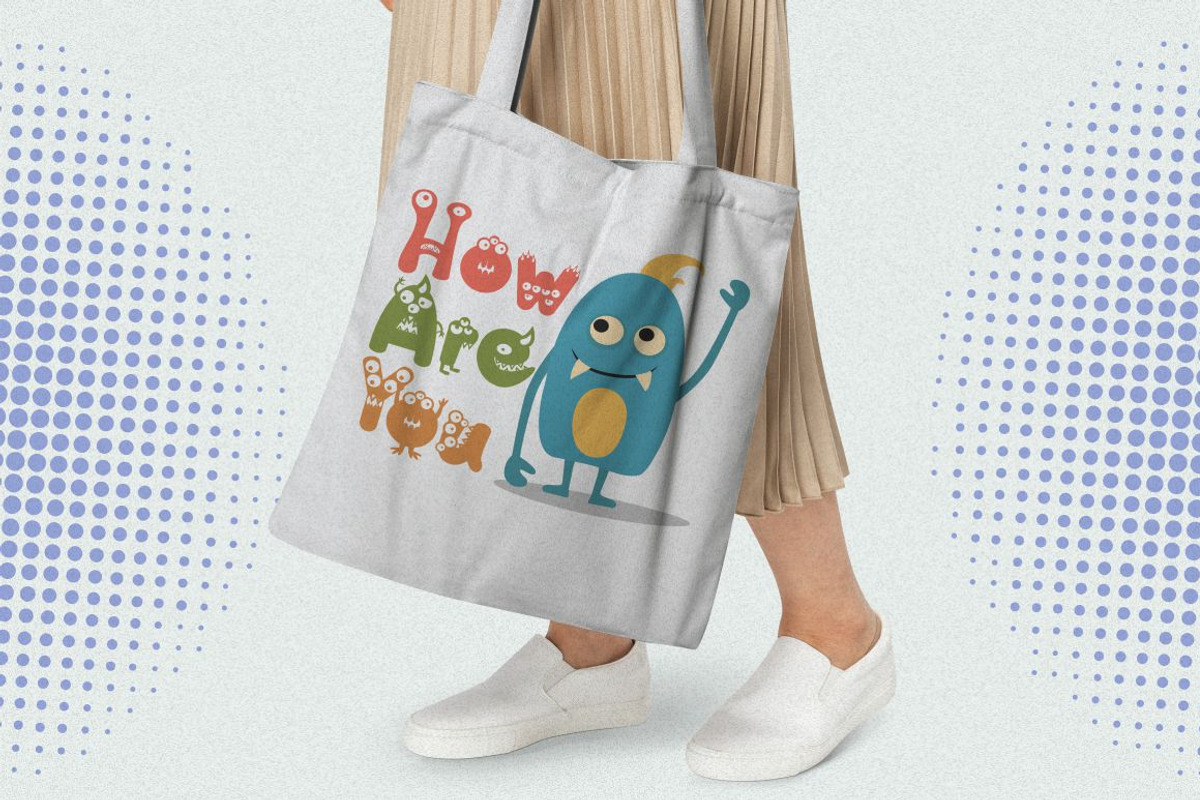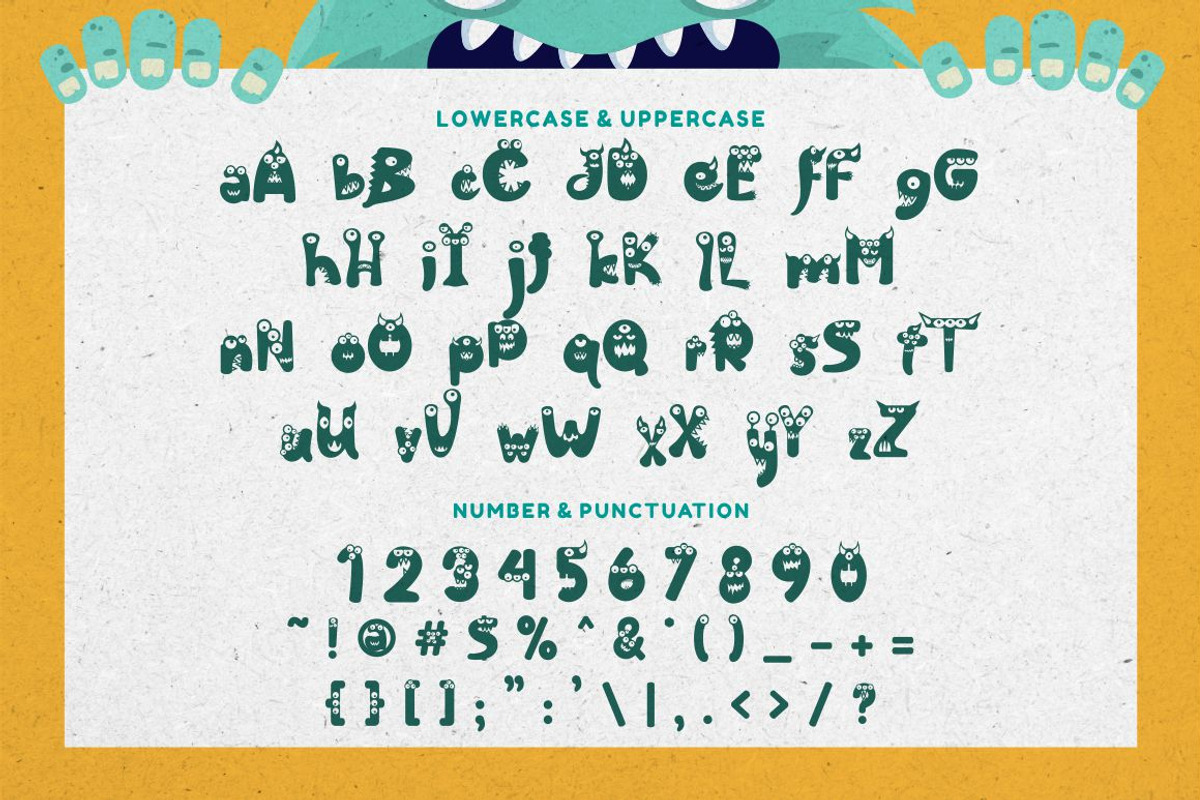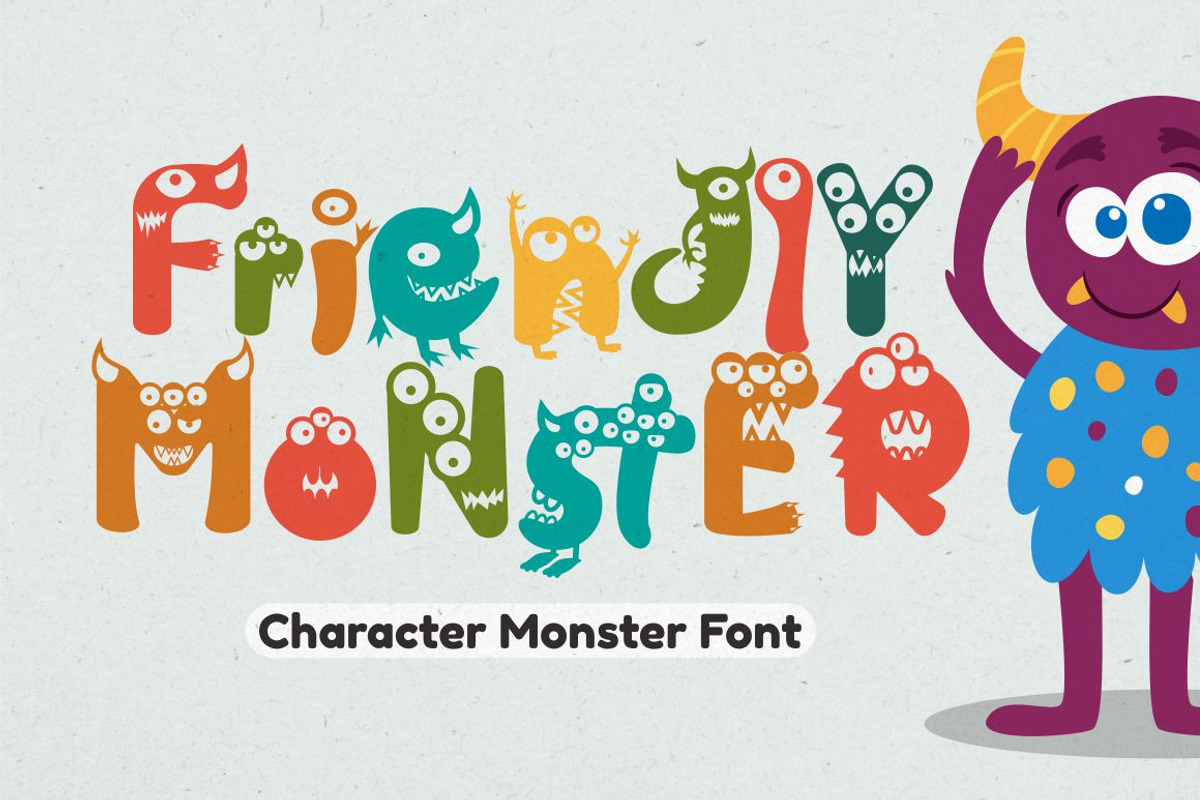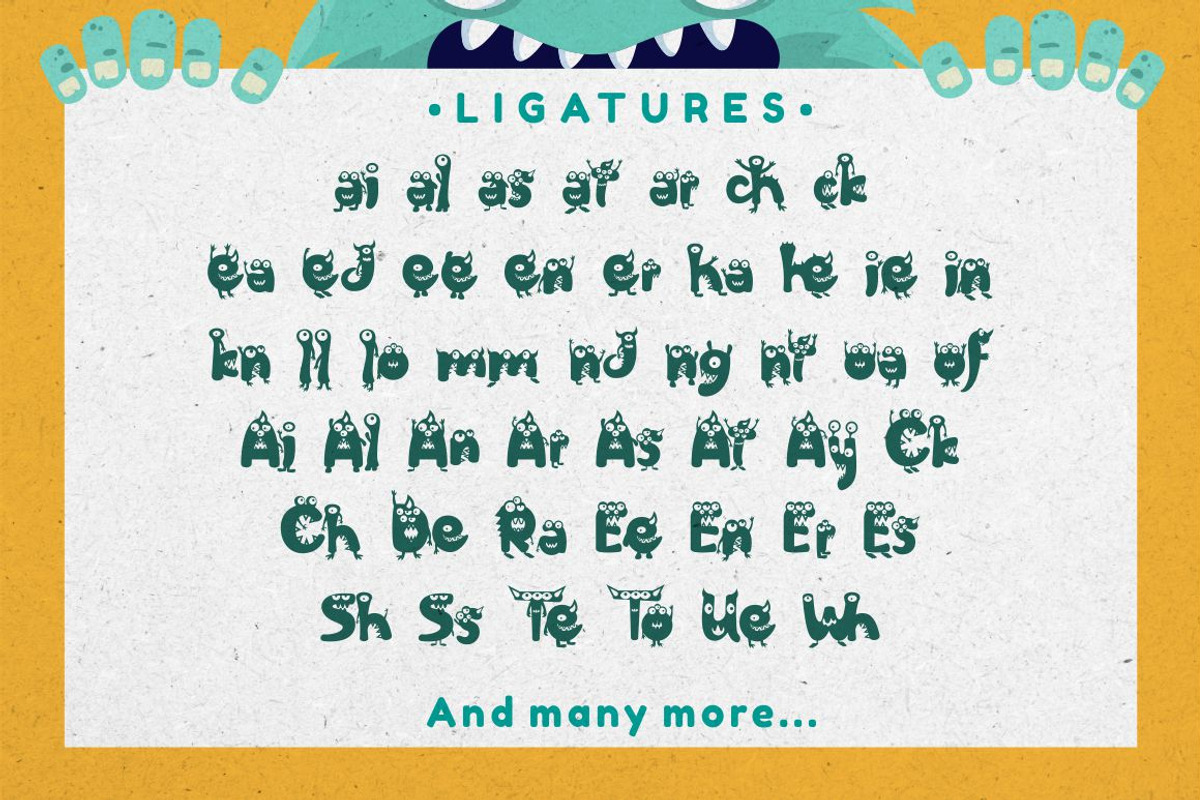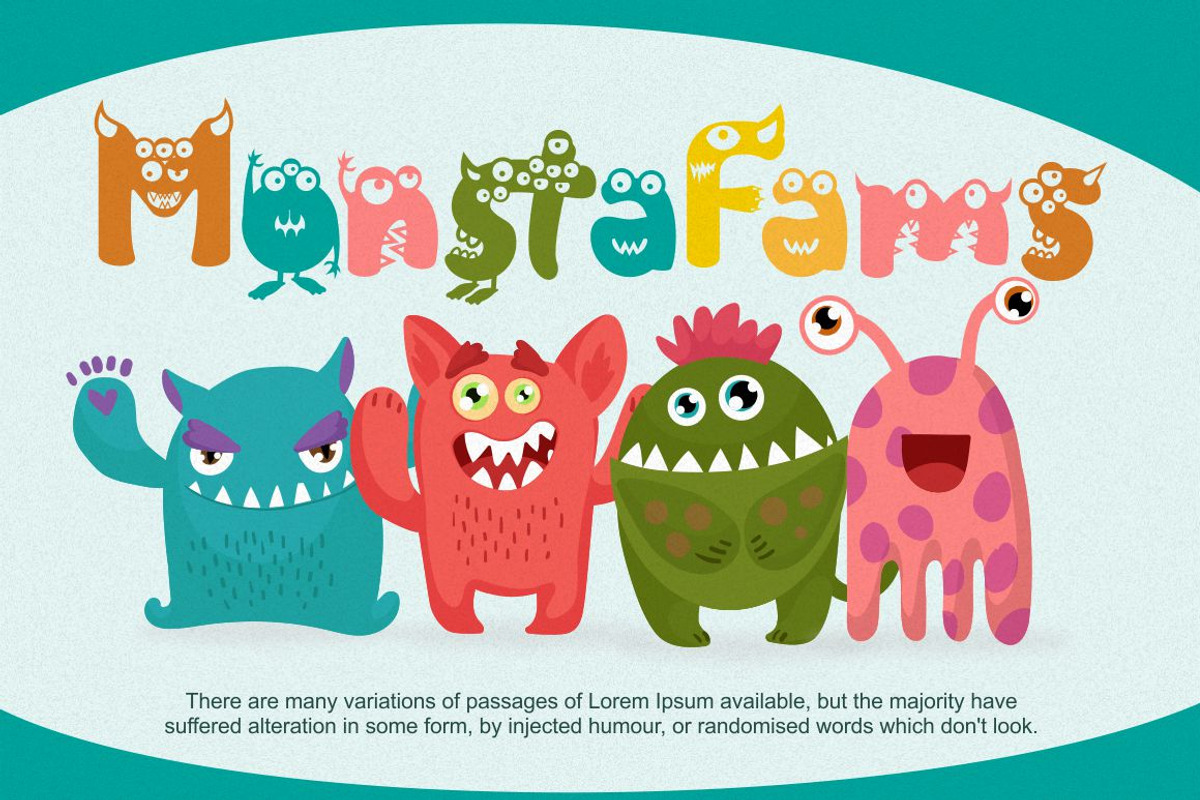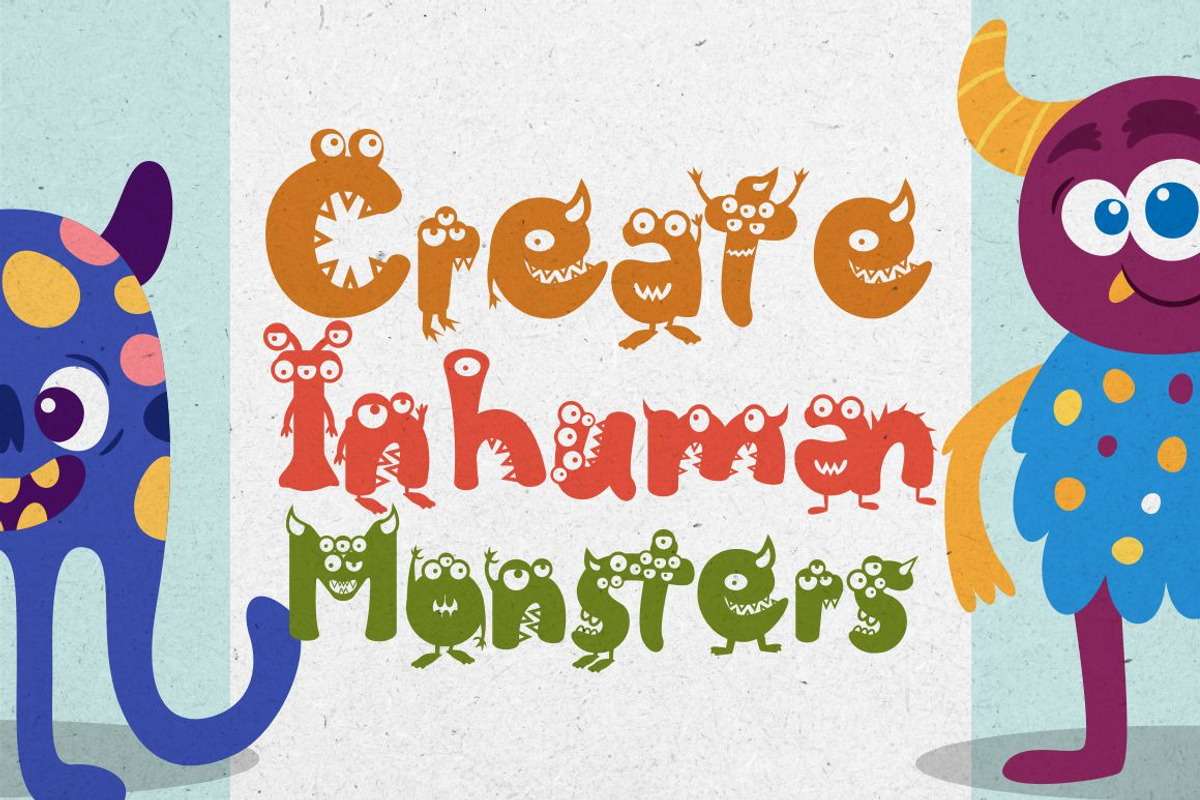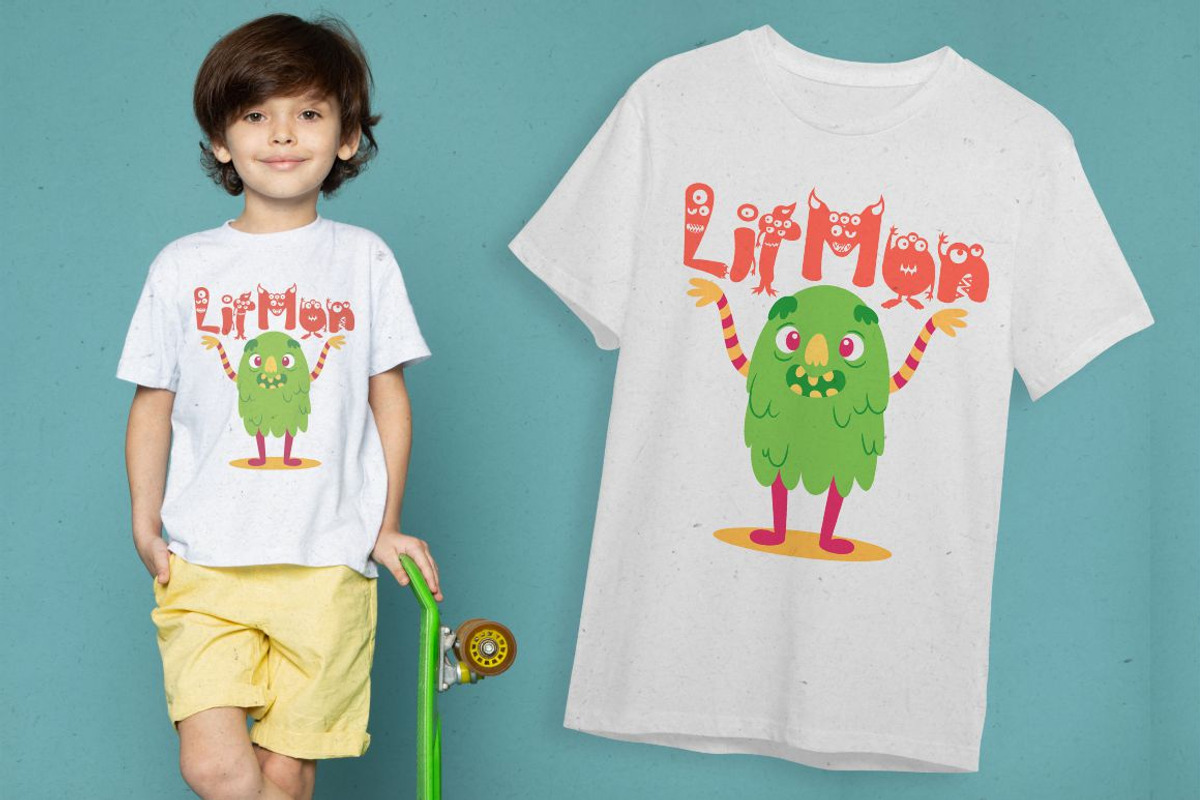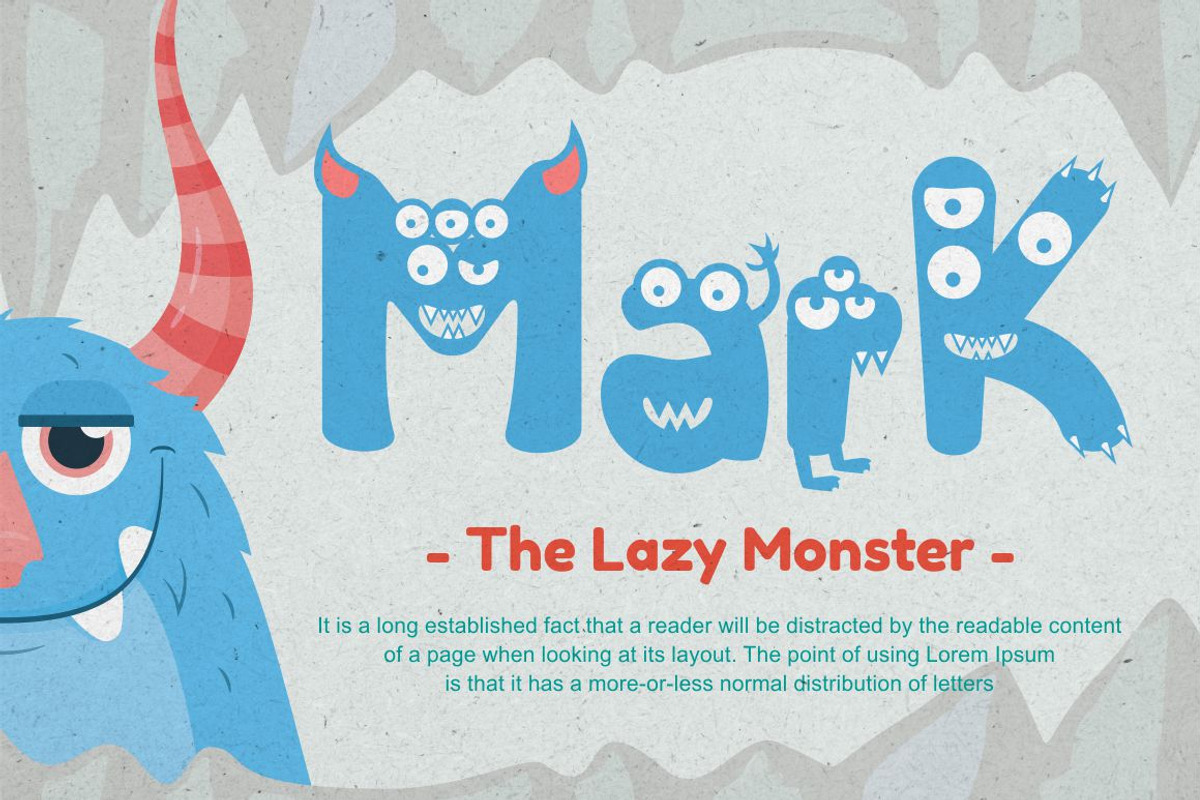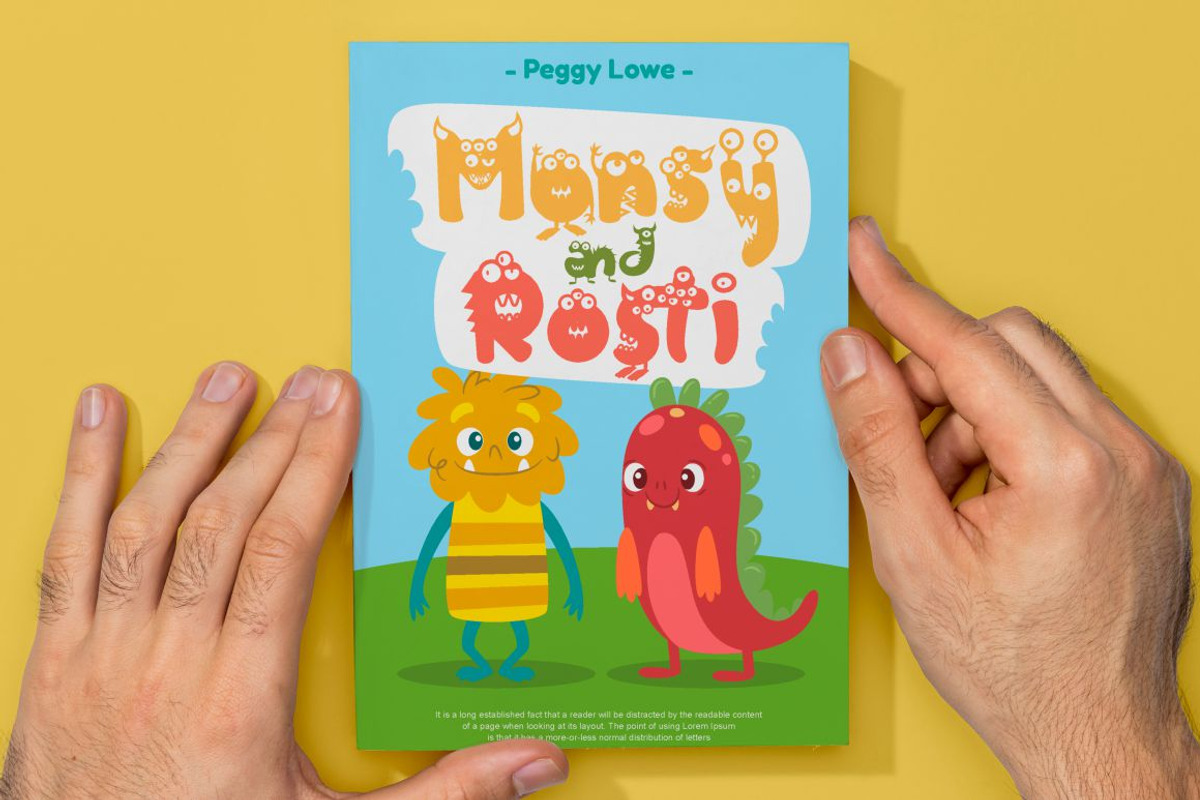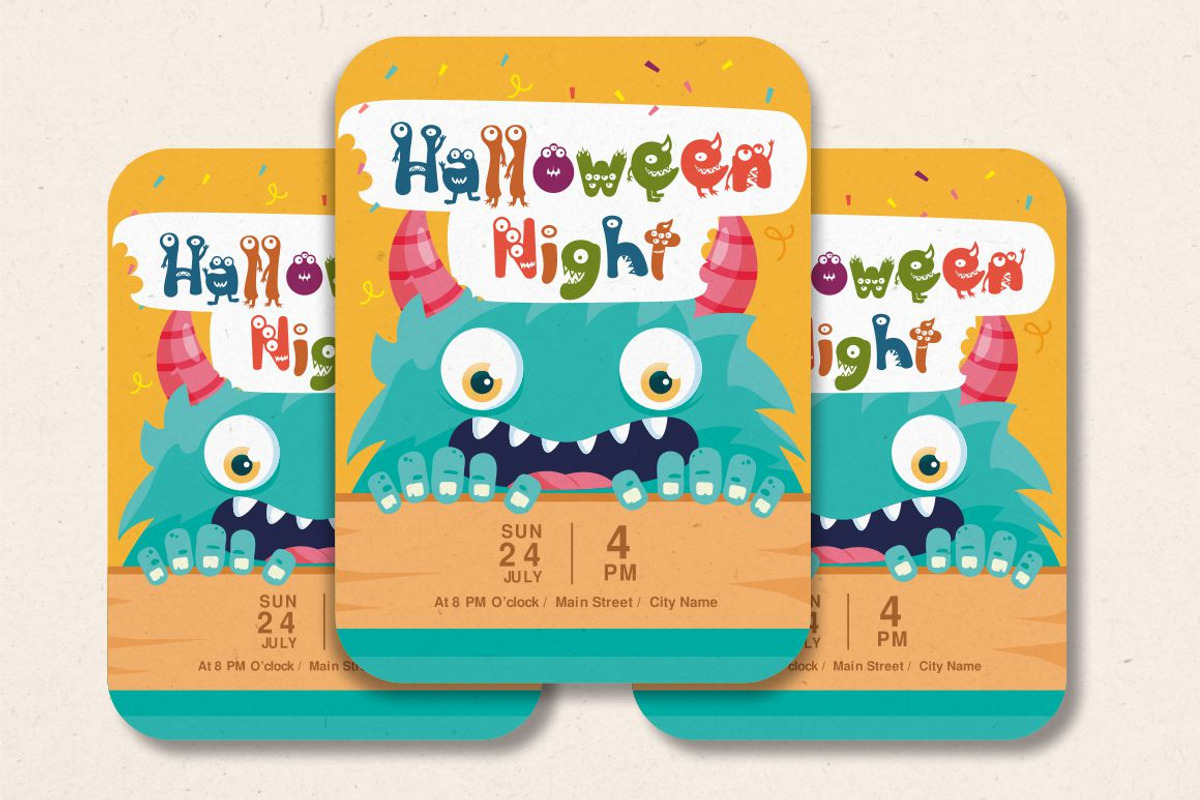
Friendly Monster - Character Font
Friendly Monster - Character Monster Font
Friendly Monster - Character Monster Font. Friendly Monster funny font is a kid's friendly spooky monster for your projects. When we talk about monster, it's not always the one that really scary. We can all have a cute, adorable, and friendly monster as well. Friendly Monster comes just like that.
Friendly Monster has a strict style, but still gives a cheerful impression, making it very easy to read and apply in all design projects such as poster designs, clothing, logos, quotes, album covers, books, business cards, product designs, and many more design projects
The alternative characters were divided into several Open Type features such as Swash, Stylistic Sets, Stylistic Alternates, Contextual Alternates, and Ligature. The Open Type features can be accessed by using Open Type savvy programs such as Adobe Illustrator, Adobe InDesign, Adobe Photoshop Corel Draw X version, And Microsoft Word. This font is also support multi language.
Comes with feature :
- Opentype (Alternates And Ligatures)
- Number, Punctuation And Symbols
- Multilanguage Support.